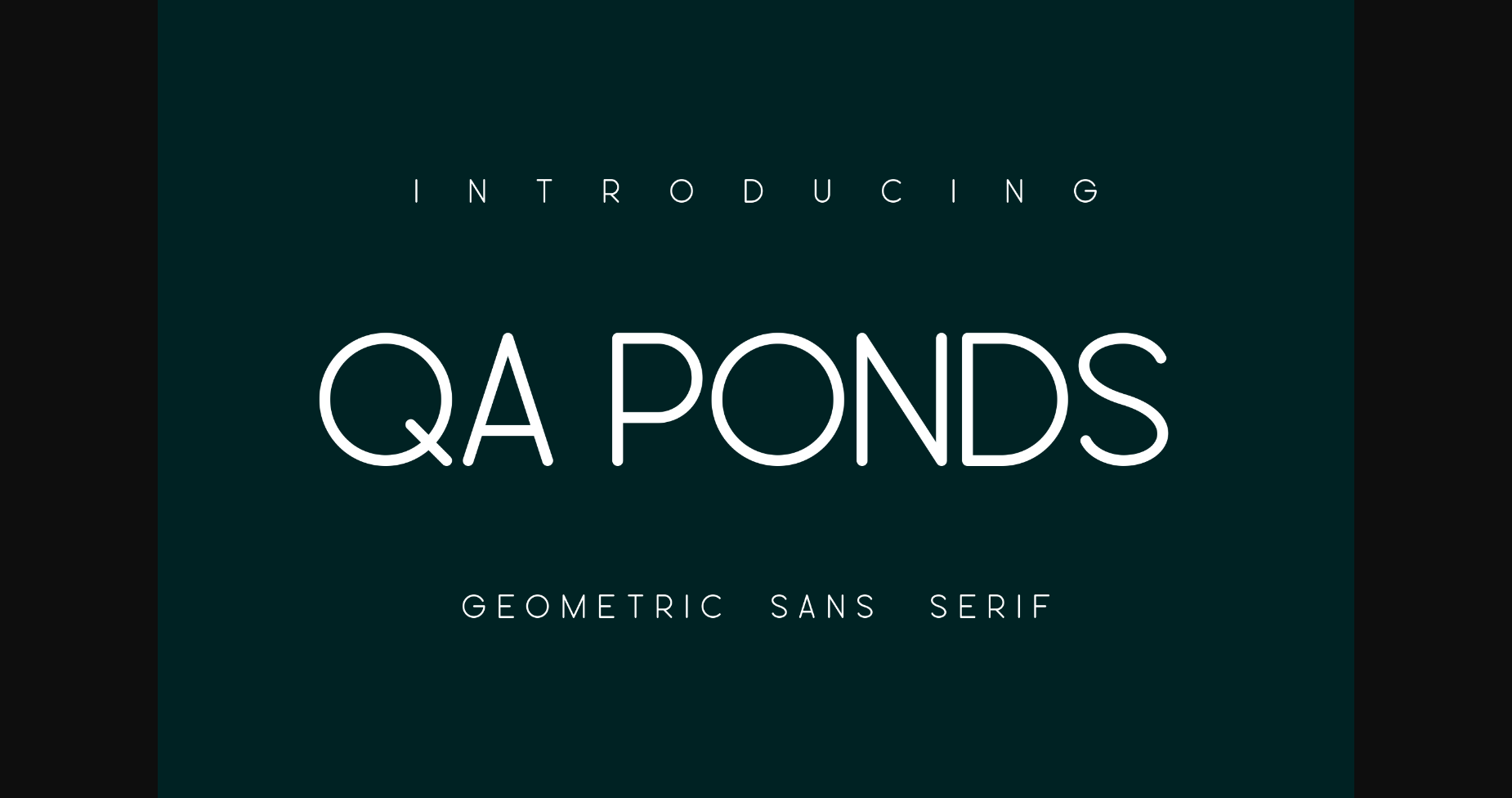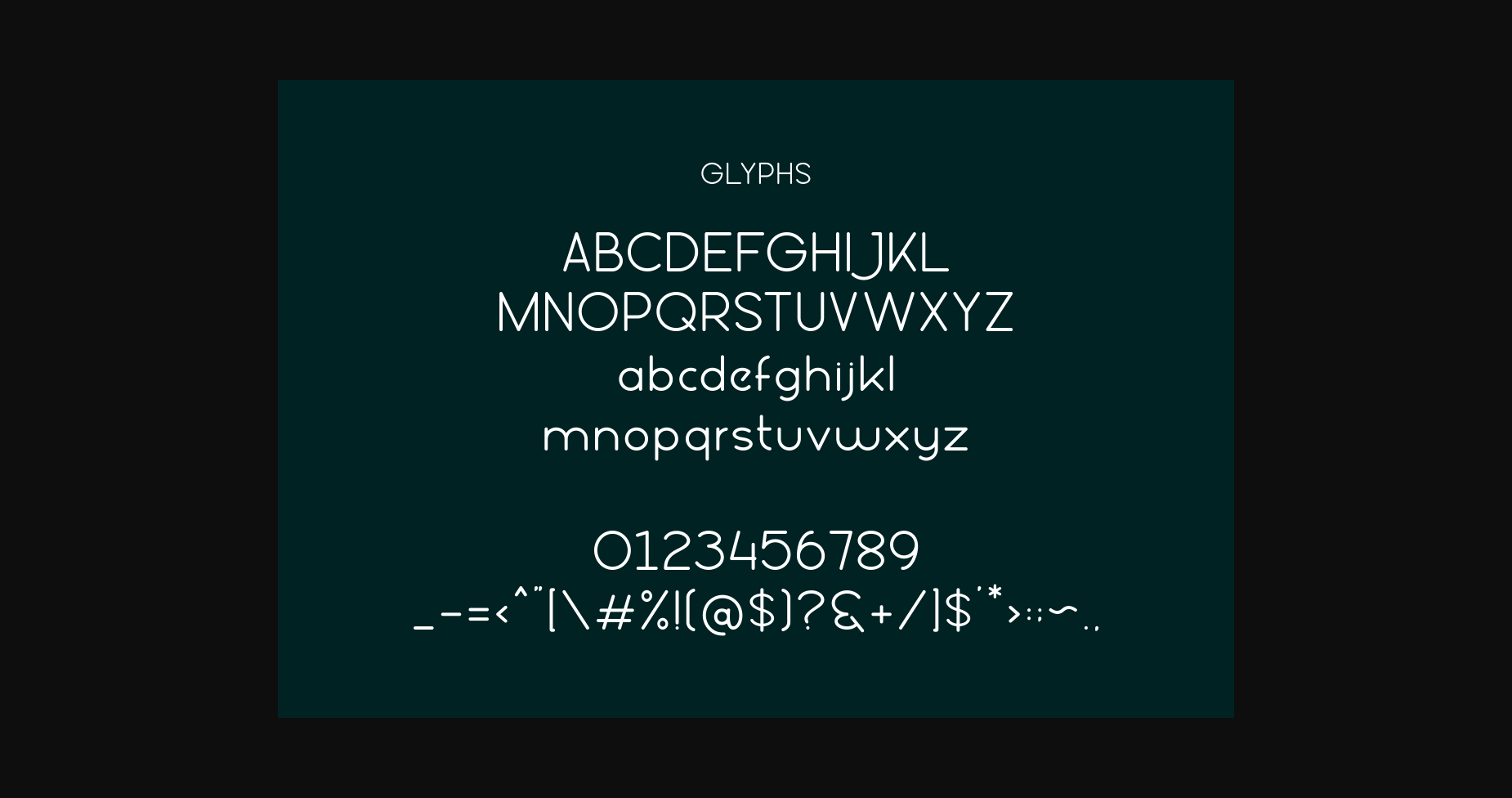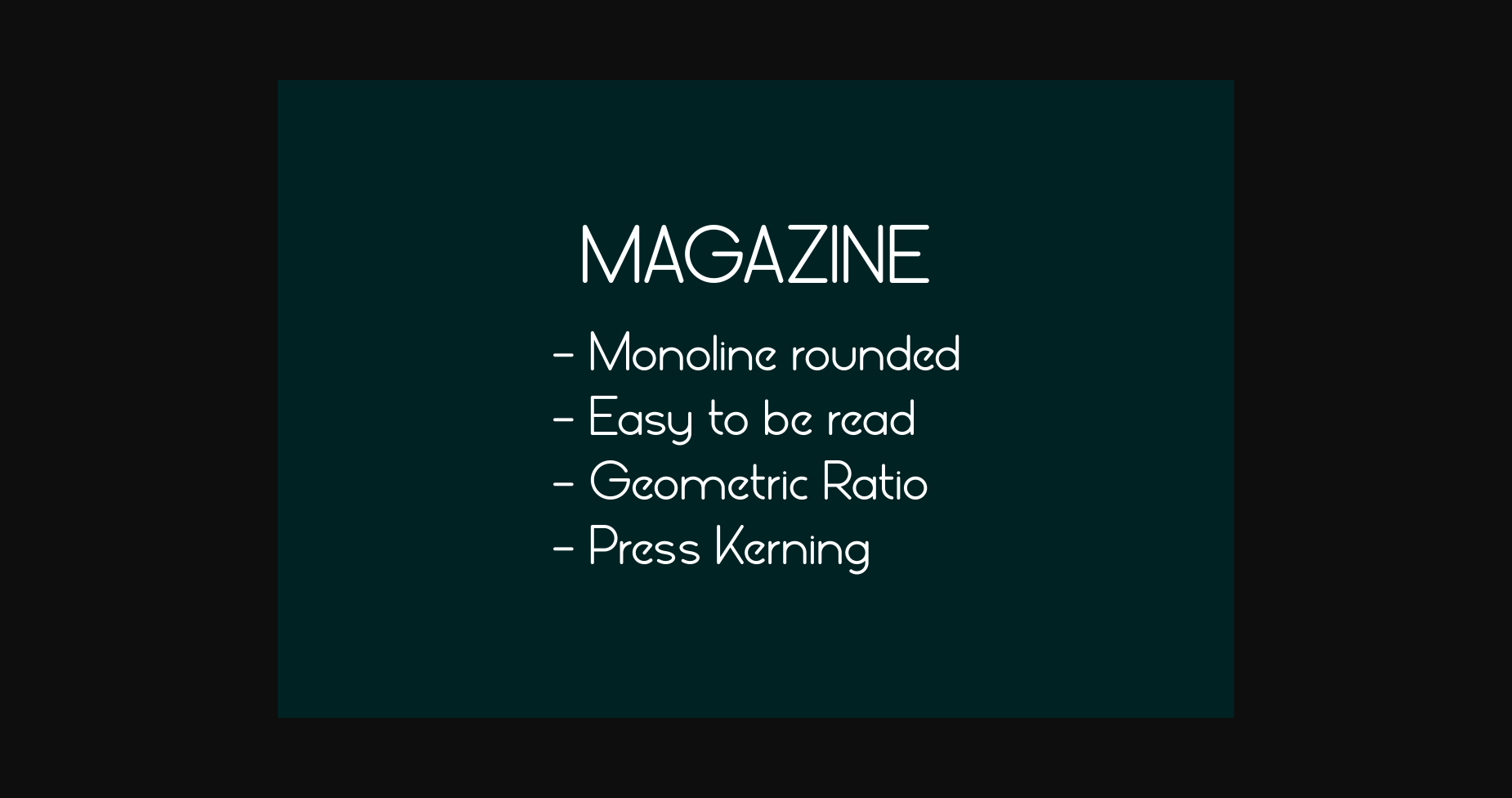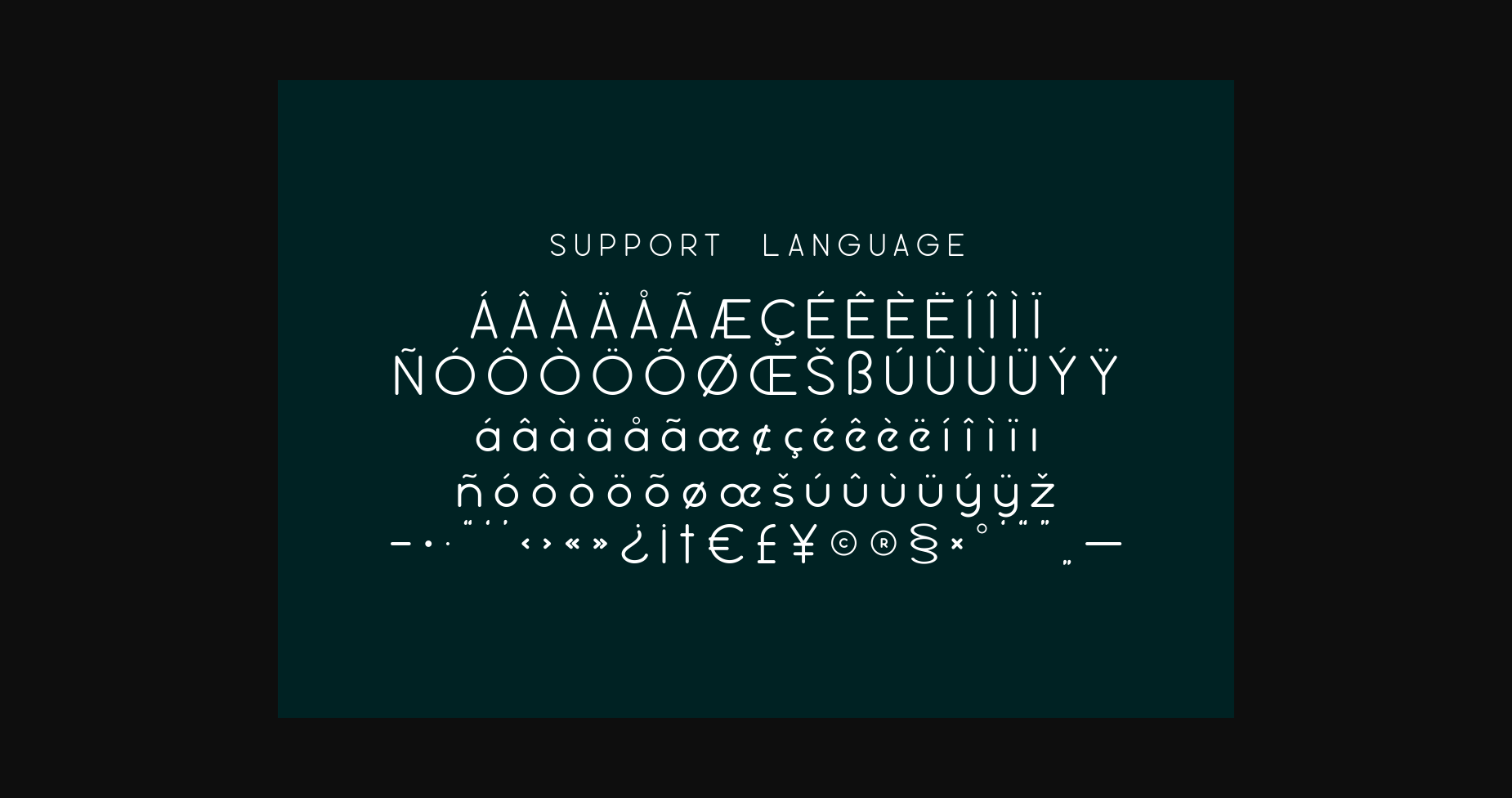
HomeSans Serif FontsQa Ponds Font Sans Serif Fonts Qa Ponds Font FacebookXPinterestWhatsApp 1 of 6 ... Qa Ponds Font Poster 2... Qa Ponds Font Poster 3... Qa Ponds Font Poster 4... Qa Ponds Font Poster 5... Qa Ponds Font Poster 6... About Qa Ponds Font Qa Ponds is an easy-to-spot and modern sans-serif font. This minimalist and genuine vibe can easily apply to your favorite designs such as book covers, magazines, social media posts, invitations, and so much more! DOWNLOAD NOW People also explored Backhome Font Natarasda Font Chantique Font Our Goal Font Caranten Font Bought Something Font Amalynta Beauty Font Symptomatic Bromello Font 393 0 TagsQa Ponds Font Previous articleFendo FontNext articleNaughty Font LEAVE A REPLY Cancel reply Comment: Please enter your comment! Name:* Please enter your name here Email:* You have entered an incorrect email address! Please enter your email address here Website: Save my name, email, and website in this browser for the next time I comment. Personal Use Free Braindly Personal Use Free Read more about this font Bonifaciy Personal Use Free Read more about this font Happy Santa Personal Use Free Read more about this font Latifah Personal Use Free Read more about this font BLOG How to Install and Use Fonts on Windows, macOS, and Web Projects How to Install and Use Fonts on Windows, macOS, and Web Projects Fonts are a crucial part of design and branding. Whether you’re designing a... Using Fonts in Digital Marketing: Tips to Strengthen Your Brand Identity Top 10 Handwritten Fonts That Elevate Your Designs Best Fonts for YouTube Videos: Make Your Thumbnails Stand Out